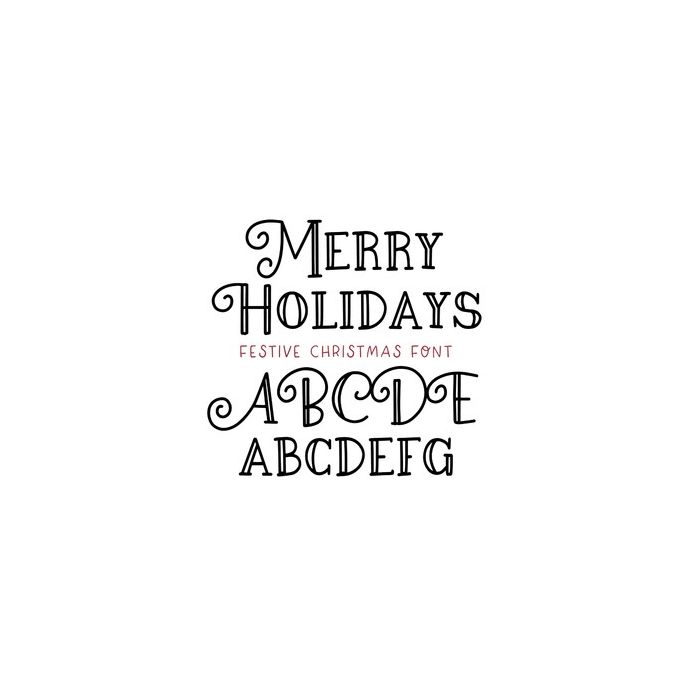
BFC Merry Holidays Fancy Christmas Card Font
Merry Holidays is a fancy and decorative Christmas/Holiday font. Perfect for Christmas cards and projects.